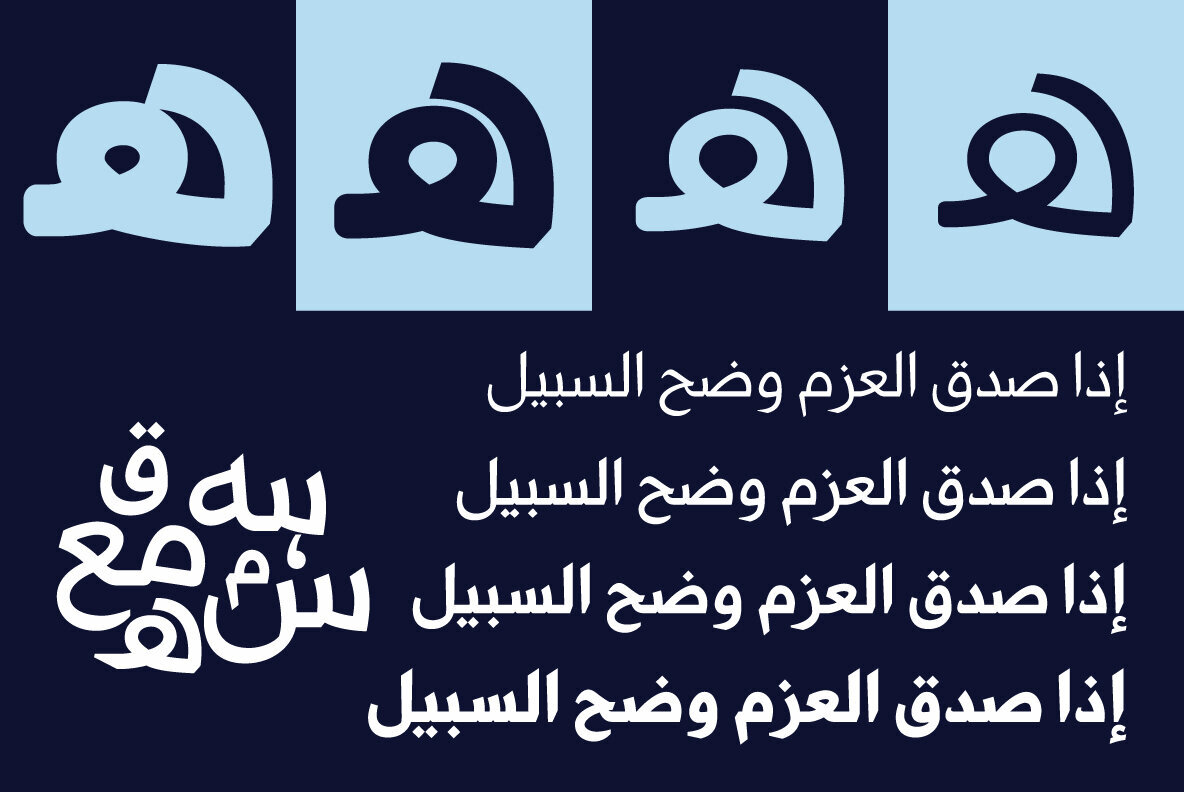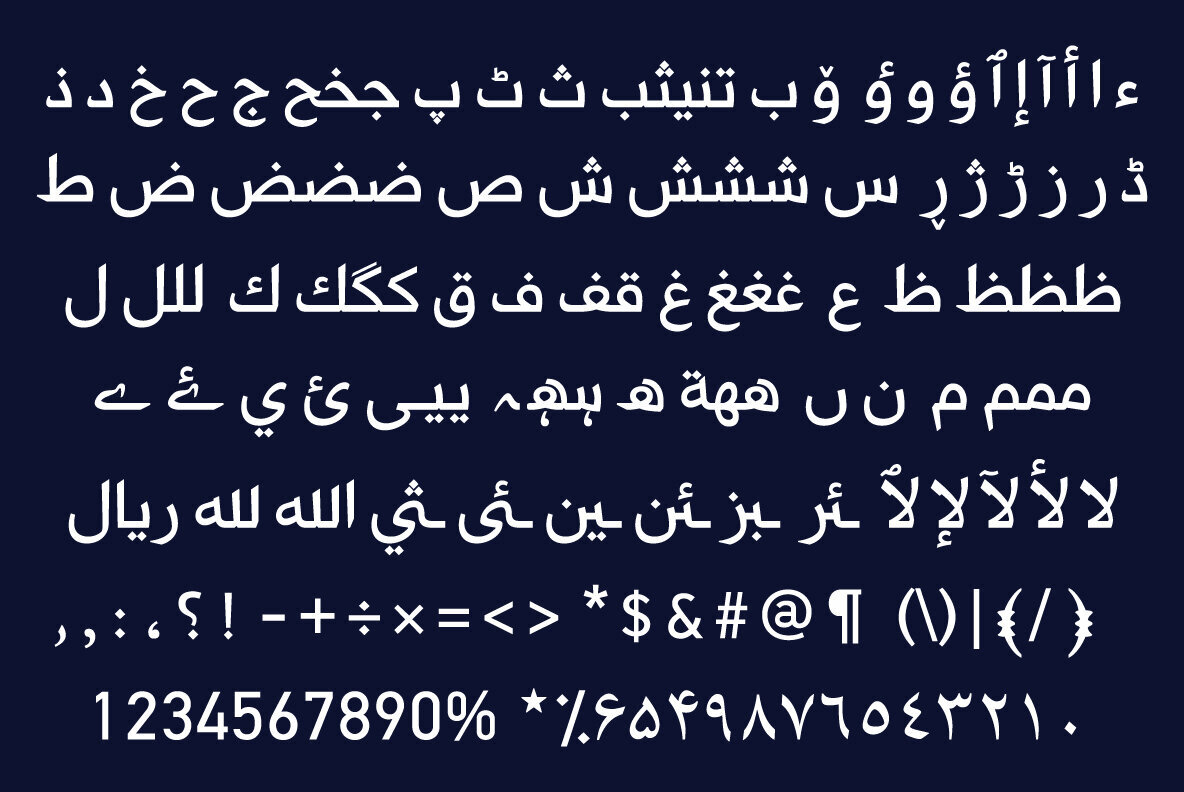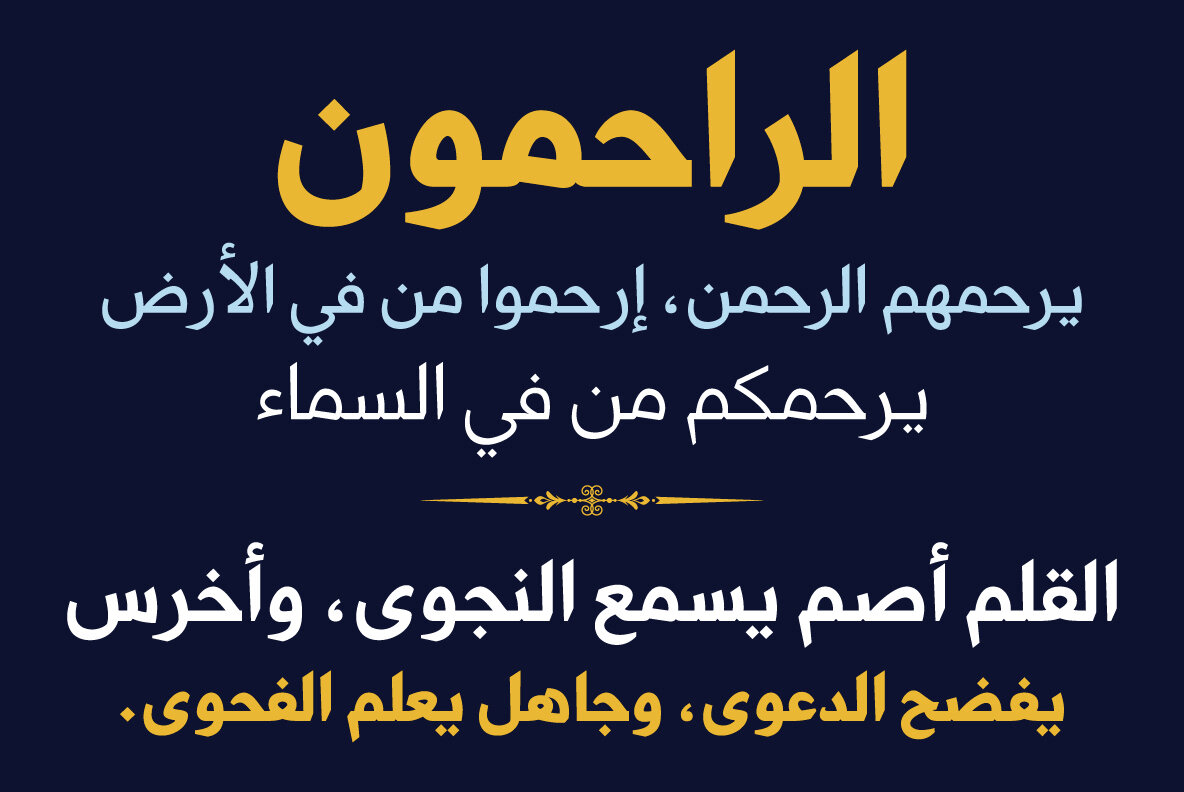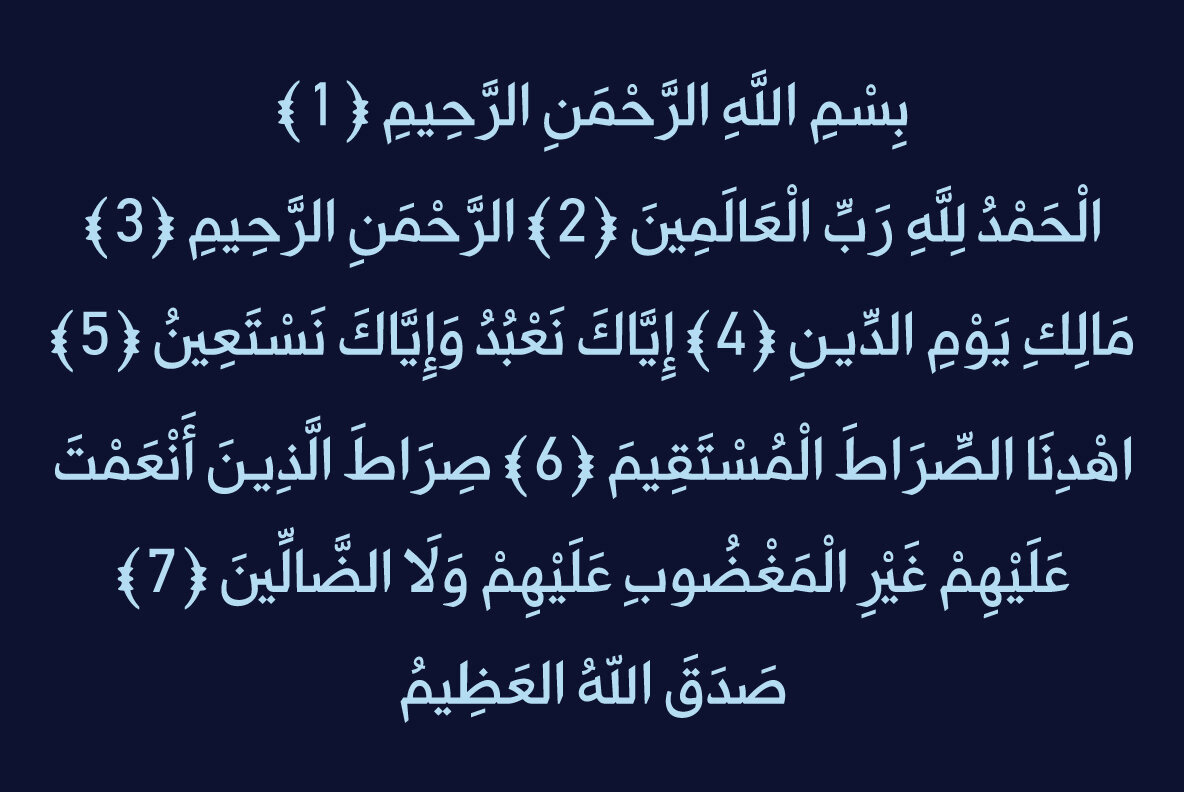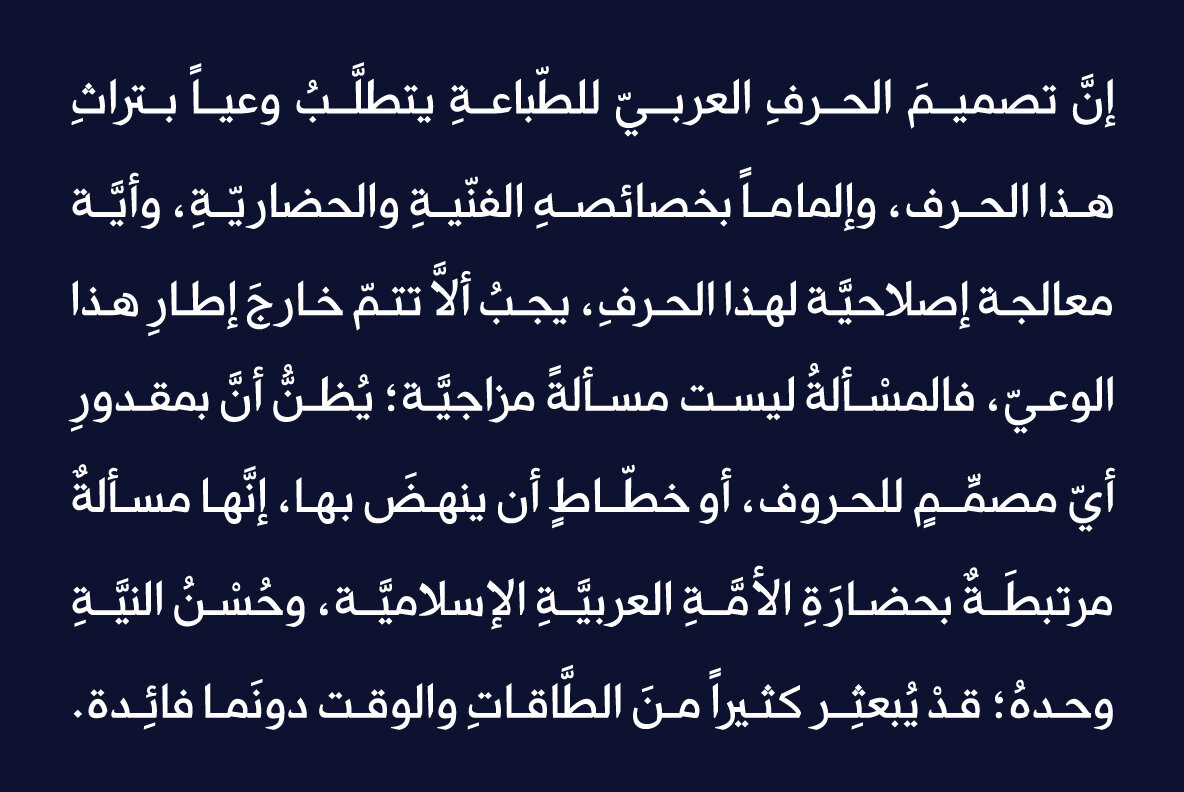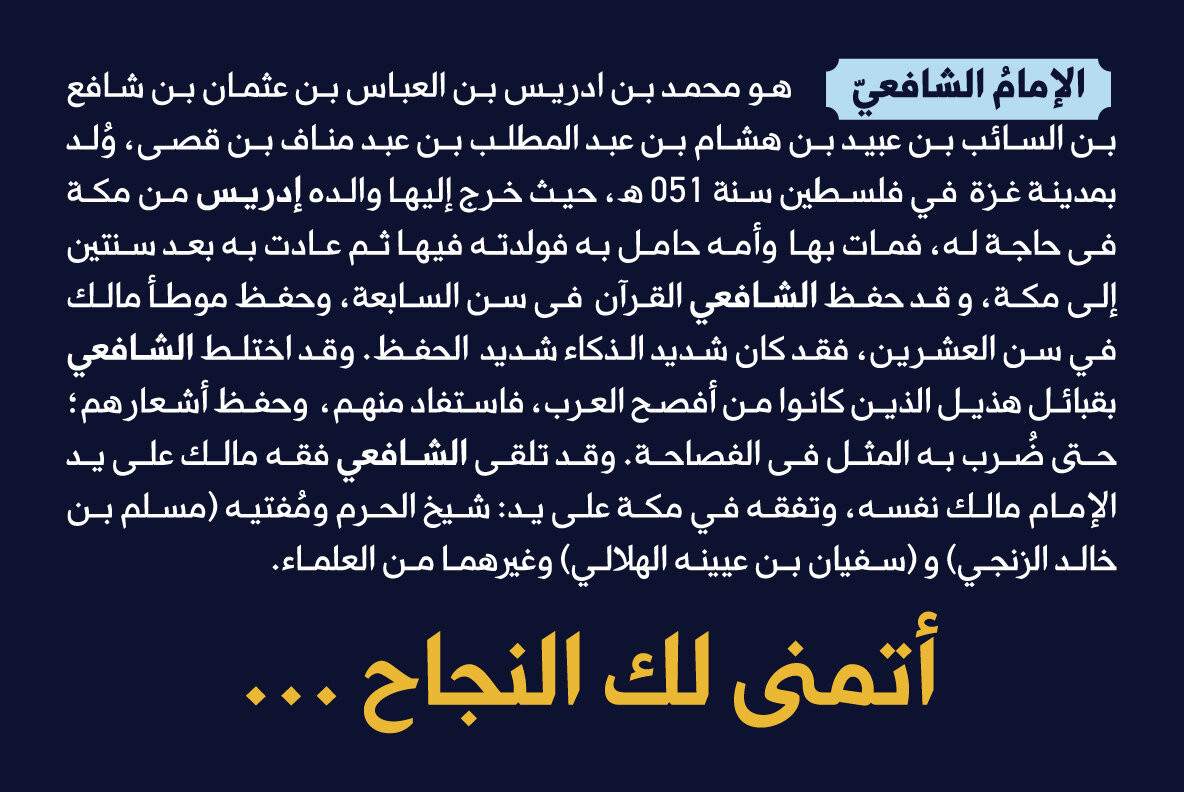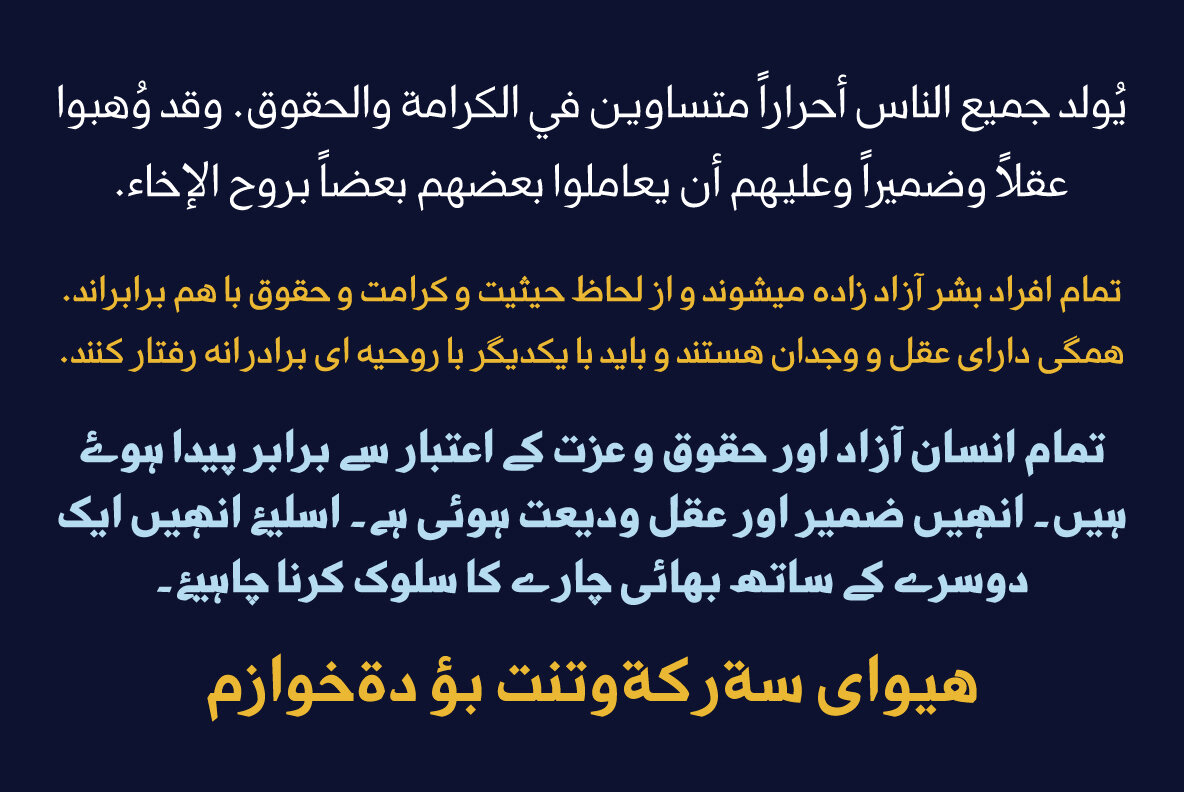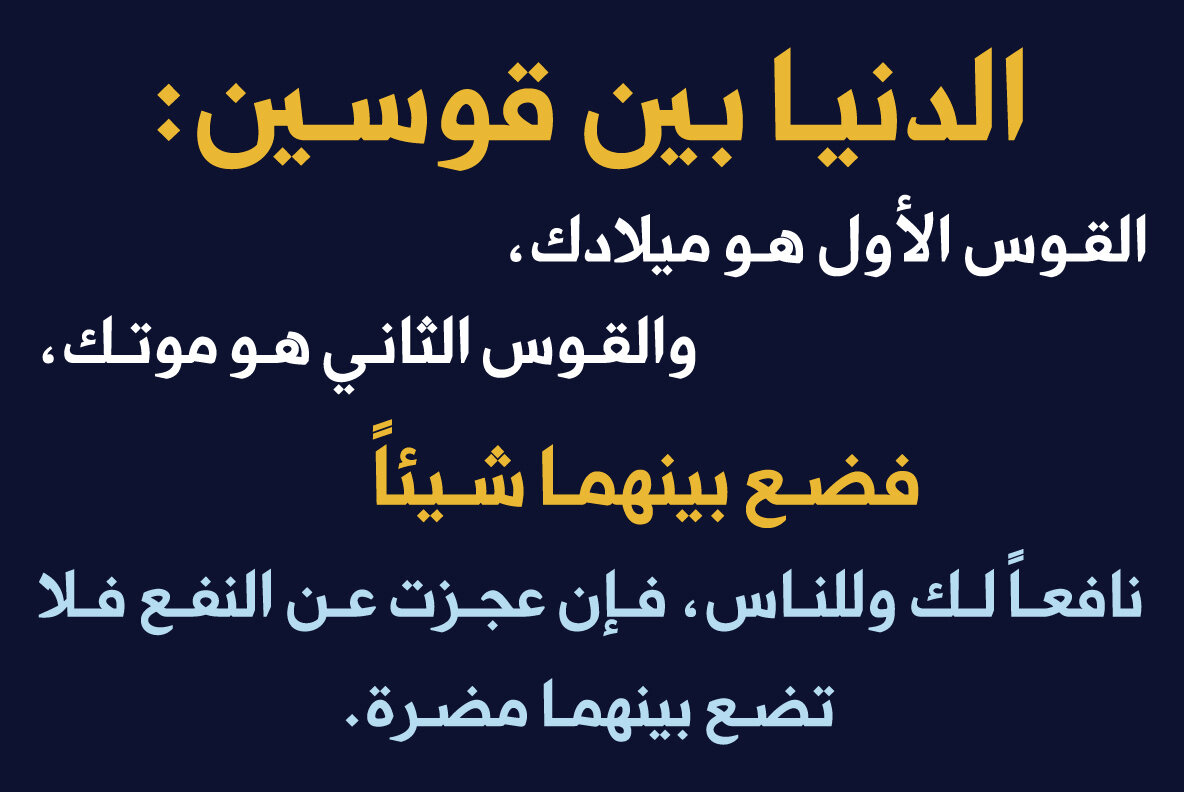
HS Almaha Font
HS Almaha is a contemporary OpenType Arabic typeface that elegantly combines the linear qualities of Naskh with the modern elements of Kufi. The segments of its letters are both curvy and sharp, providing a refined and highly readable appearance. This makes HS Almaha perfect for extended texts in magazines, newspapers, books, and other publications. The typeface supports Arabic, Persian, Urdu, and Kurdish languages, and is available in four weights: Light, Regular, Medium, and Bold. These weights enhance the typeface’s versatility, making it a valuable addition to the library of contemporary Arabic fonts. HS Almaha is designed to meet the diverse needs of various design projects, catering to all tastes.